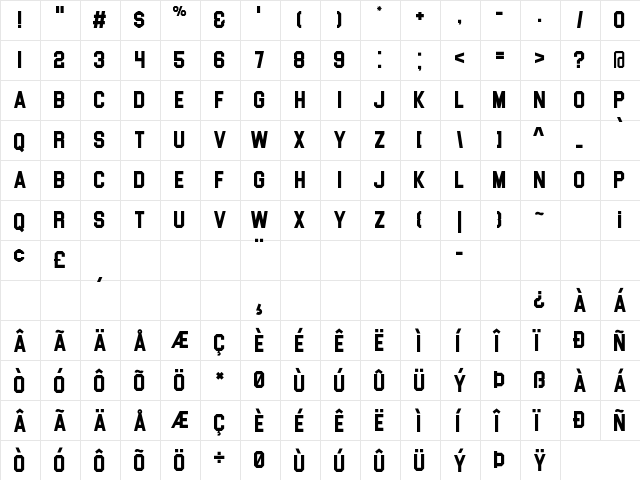
Blockletter Regular
Design Context for Blockletter Typeface
Blockletter takes a measured approach to typography — its balanced proportions and neutral character make it a reliable workhorse for both digital and print work.